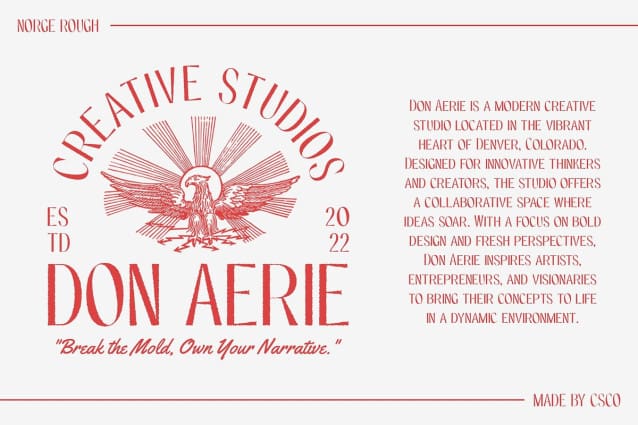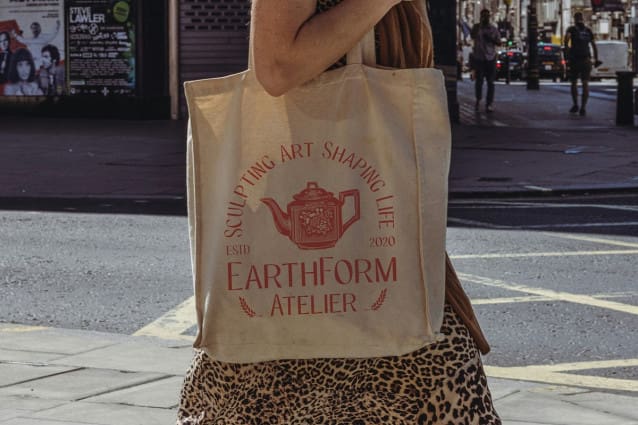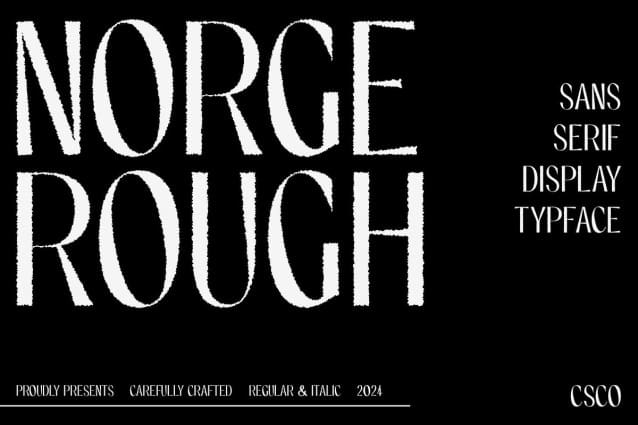
Norge Rough Font
Norge Rough Font is a classic sans-serif font that effortlessly blends clean, contemporary lines with a rough texture, evoking a strong sense of retro charm. Its structured yet inviting appearance makes it ideal for designs that aim to capture a nostalgic feel while maintaining a modern edge. This font stands out with its unique combination of smooth geometric forms and the raw, vintage texture that adds personality and depth.
Perfect for Nostalgic yet Contemporary Designs With its retro vibes, Norge Rough is perfect for projects that seek to evoke the past while staying firmly grounded in modern design trends. The clean lines ensure clarity and professionalism, while the rough effect adds an authentic, vintage flair. Whether you’re designing logos, posters, or branding materials, this font strikes the perfect balance between timeless appeal and a fresh, contemporary look.
Versatile for Branding and Creative Projects Norge Rough is versatile enough for a variety of design applications, including branding, editorial projects, posters, and more. Its strong visual presence makes it ideal for projects that need to stand out and leave a lasting impression. The font works especially well in designs that call for a bold yet approachable aesthetic, evoking a sense of nostalgia without compromising on modern style.